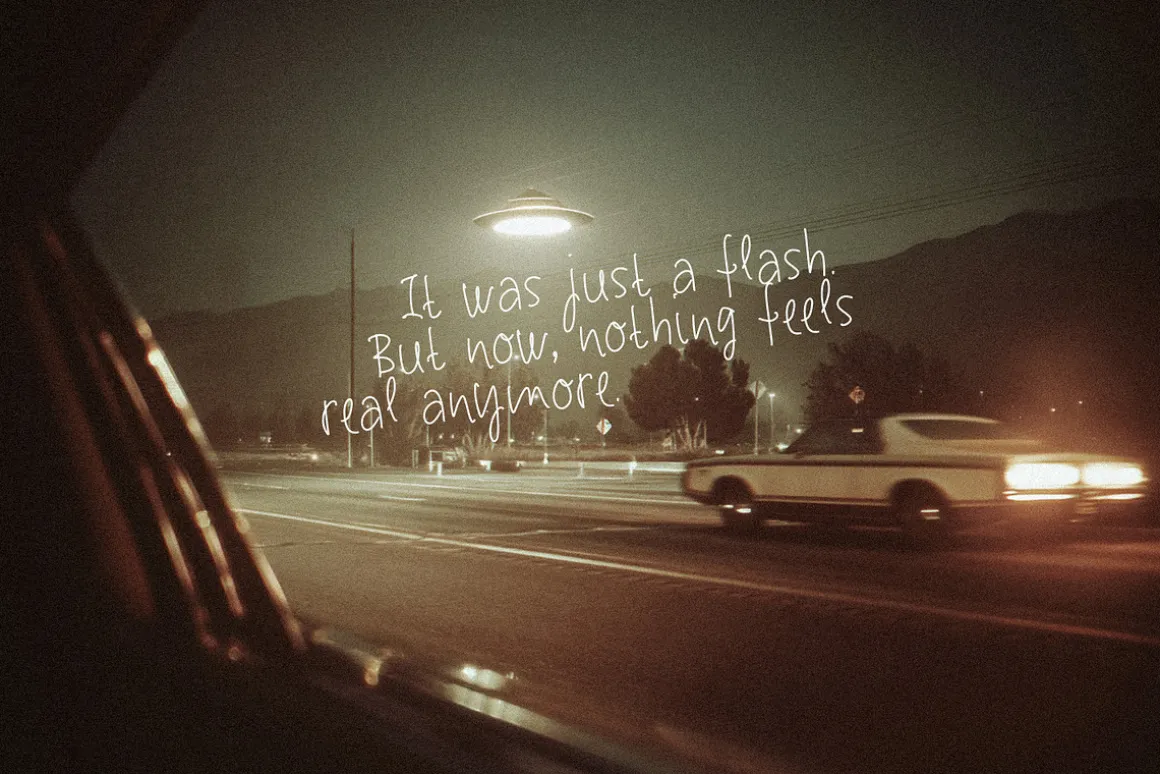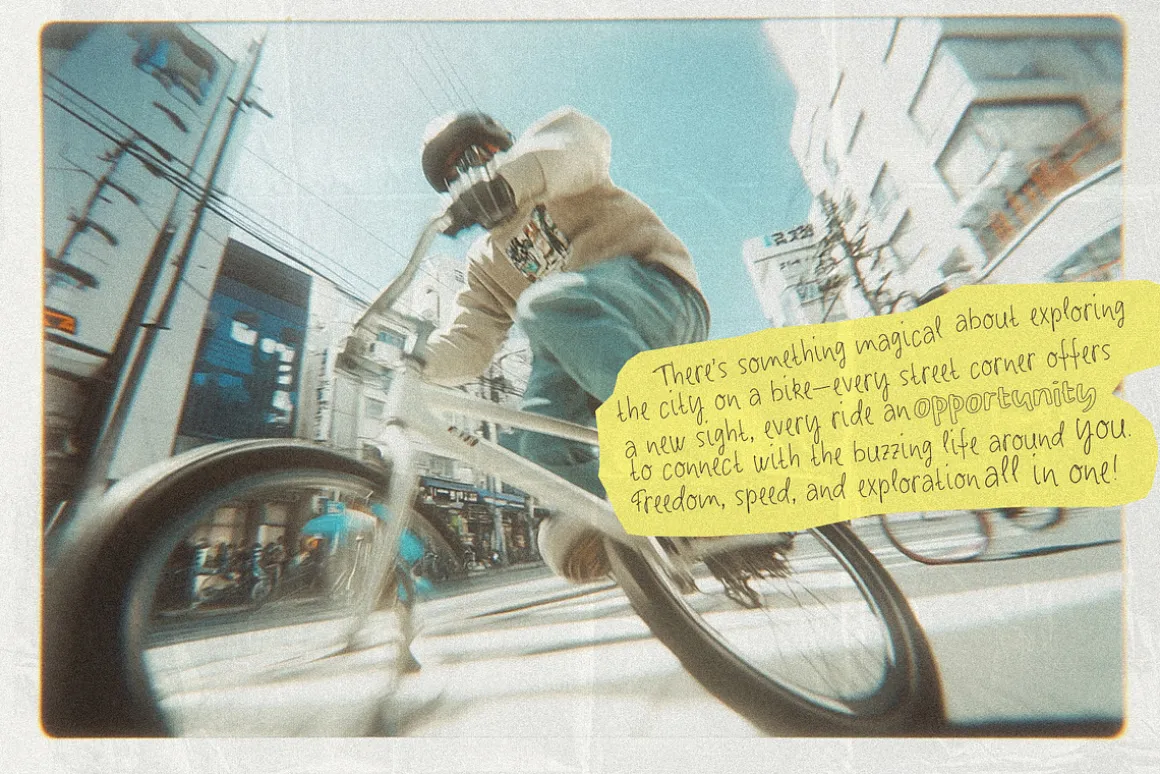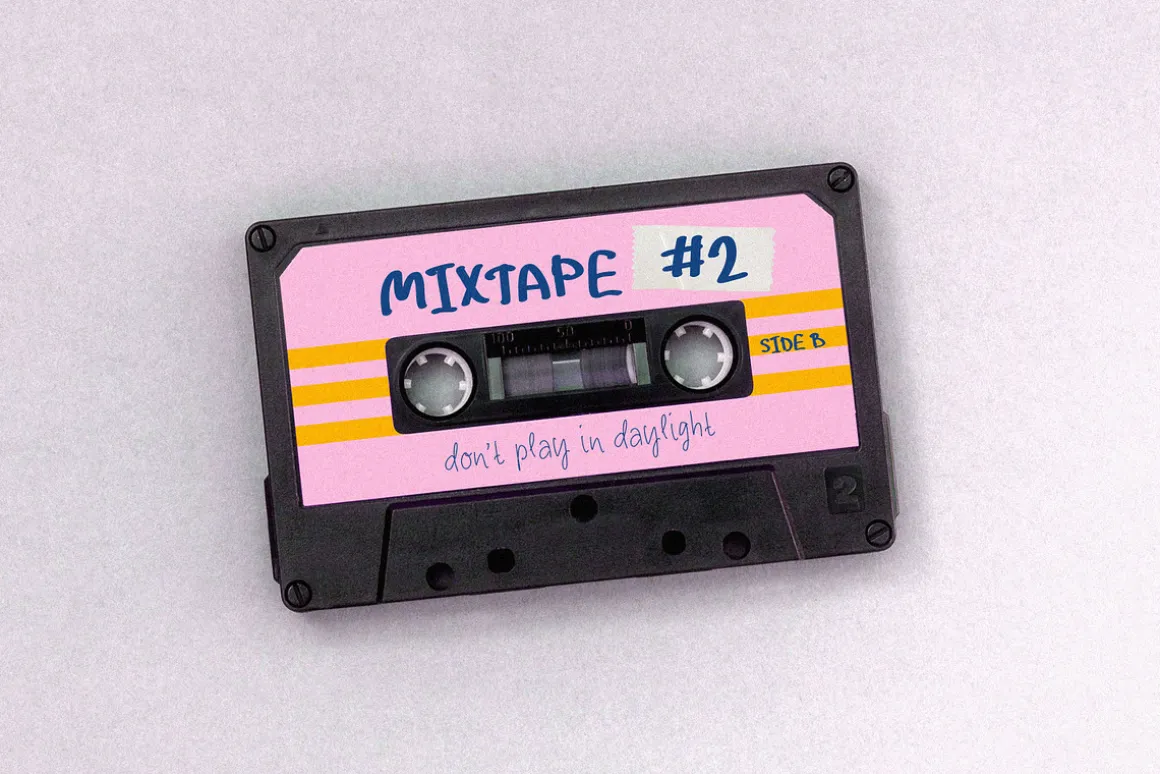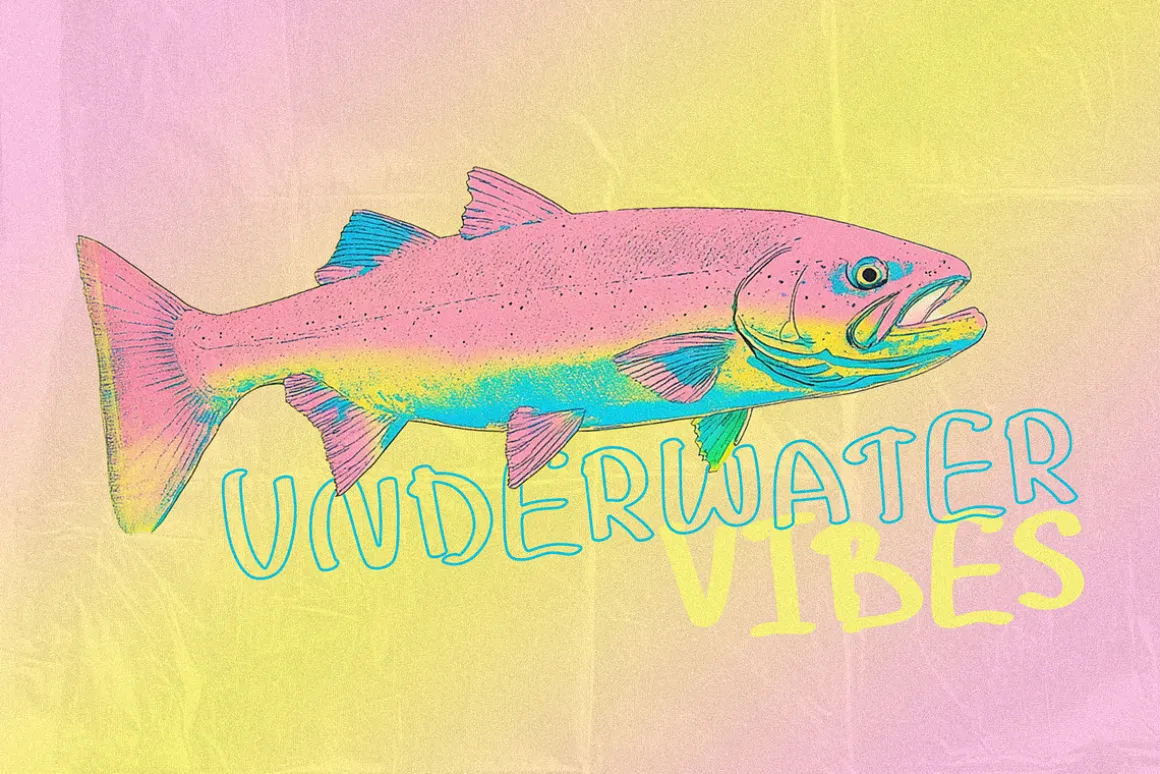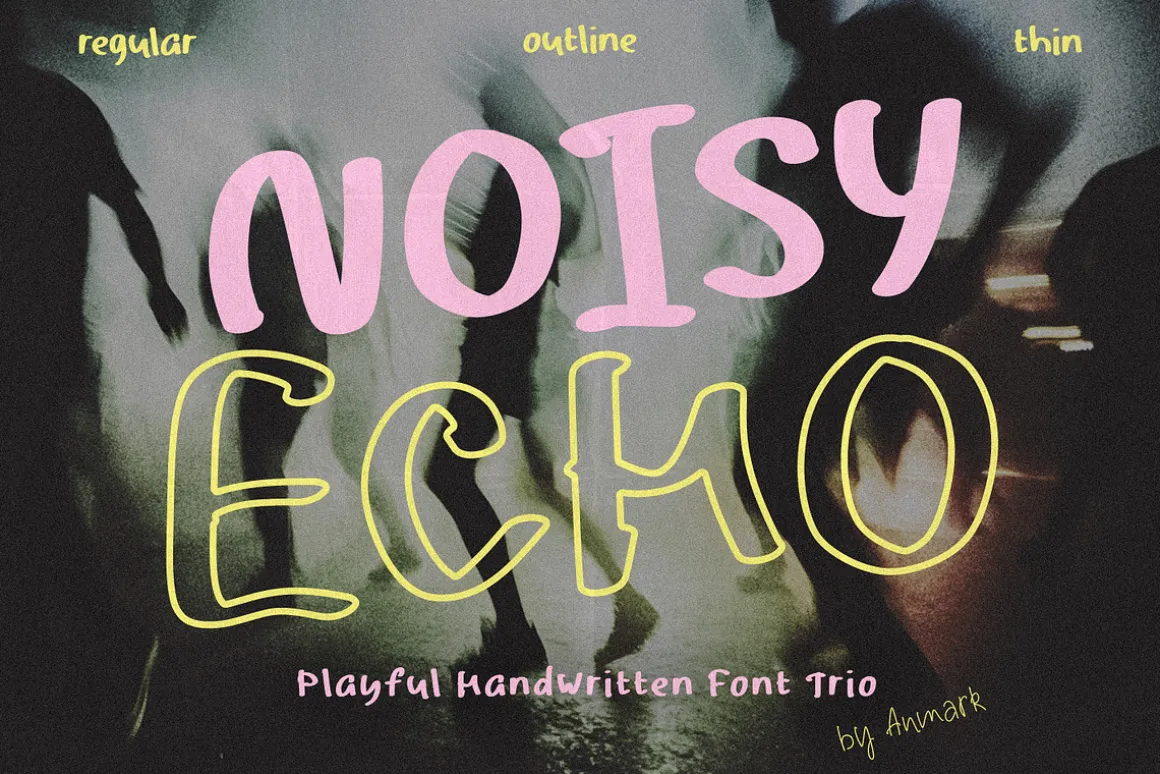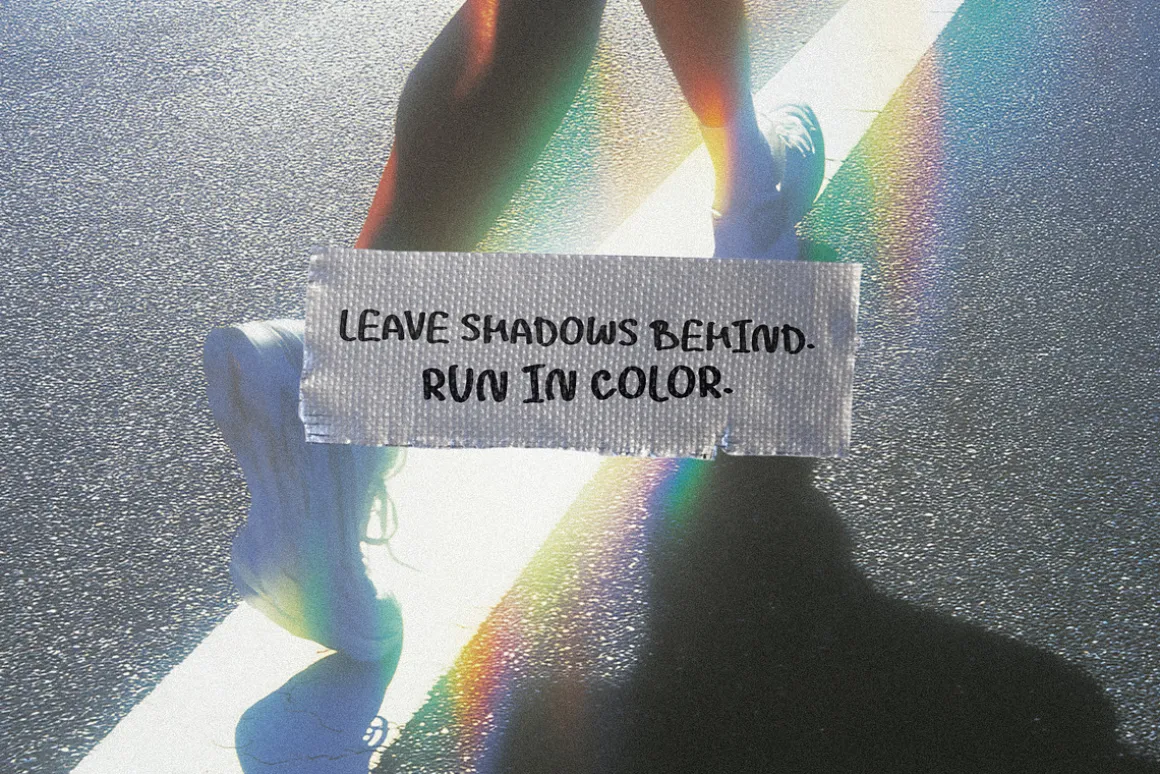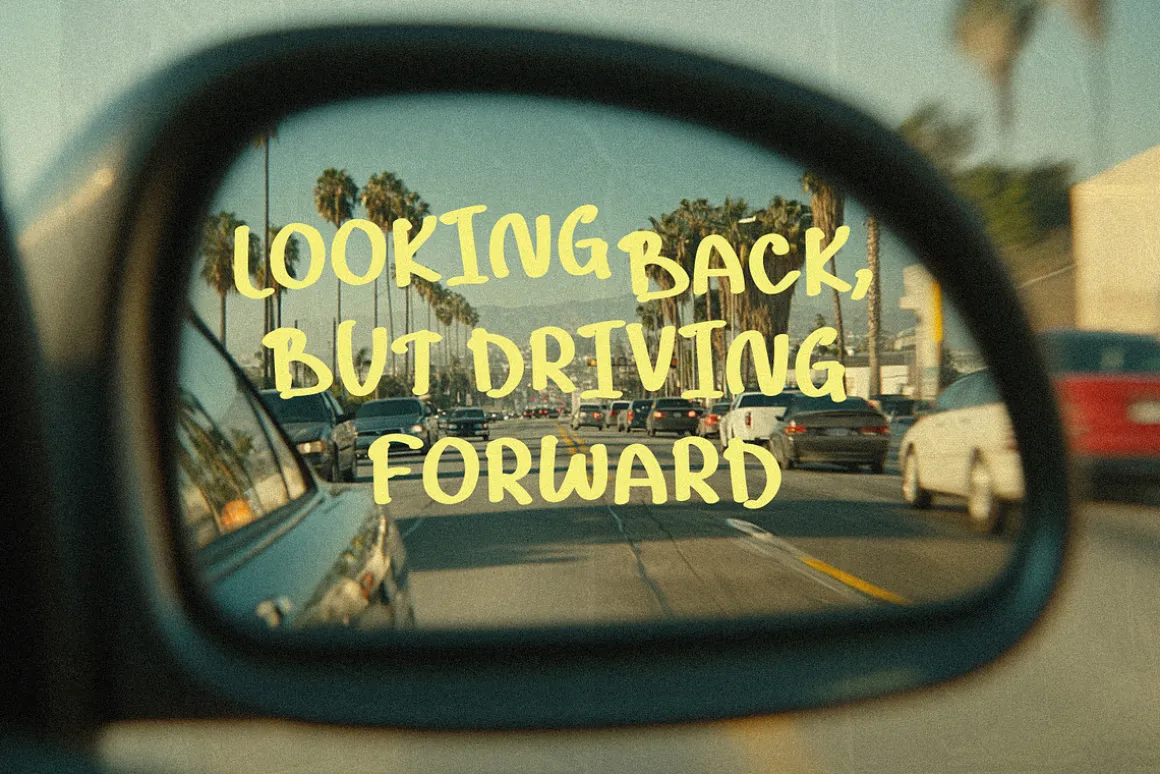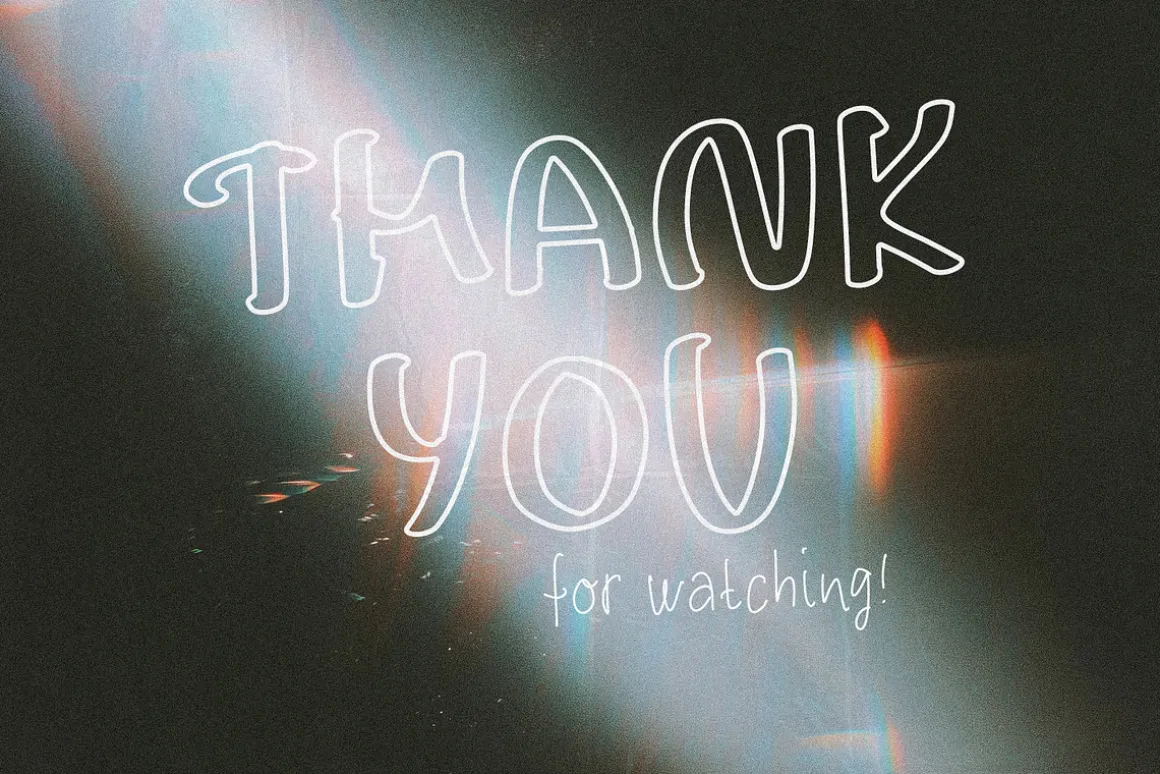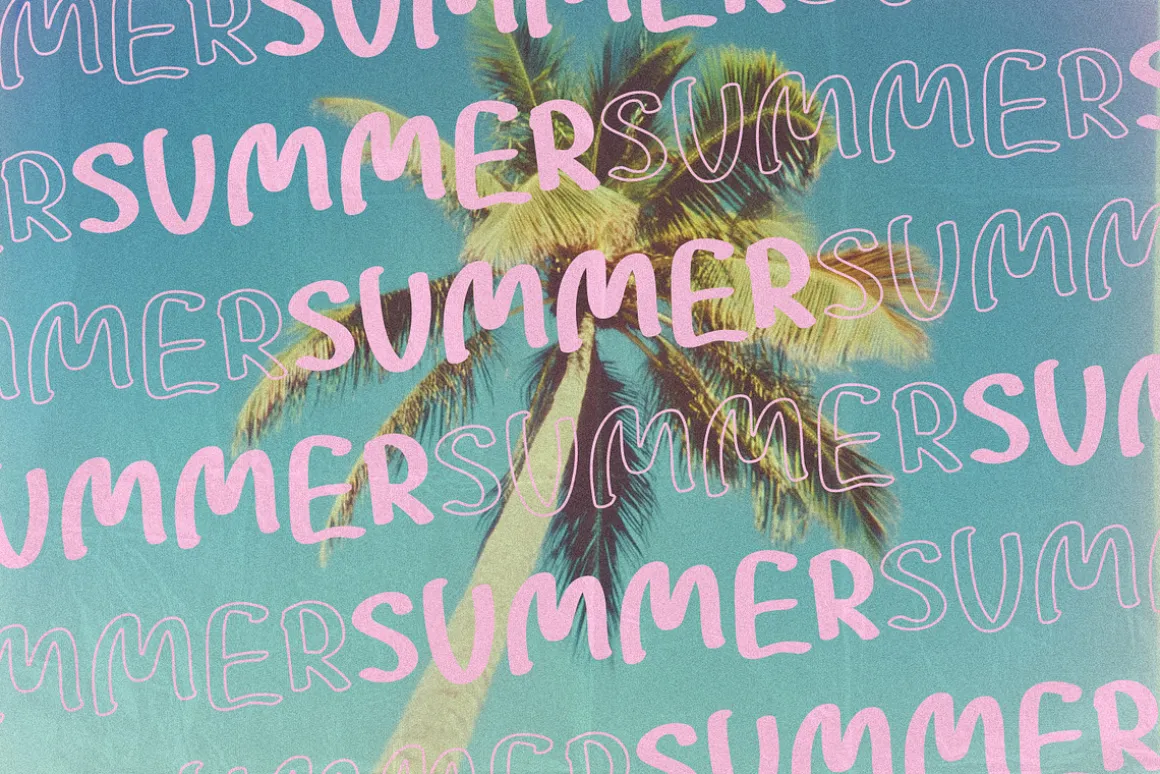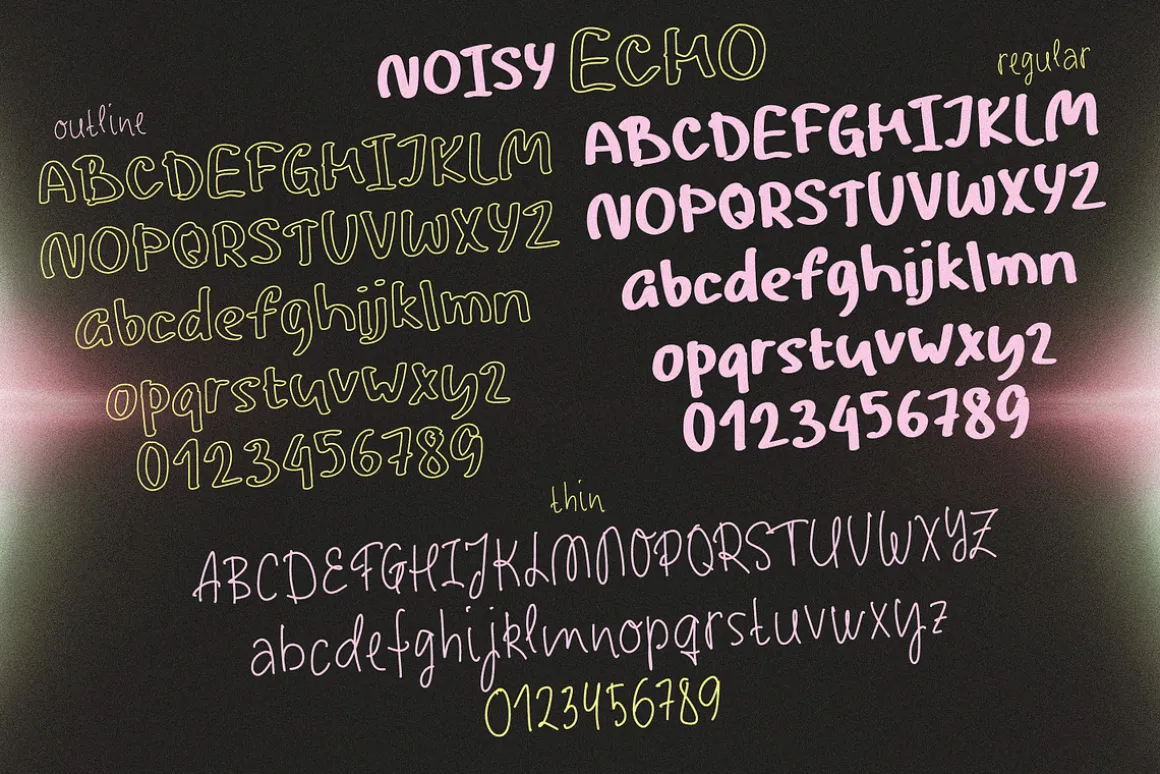
Noisy Echo – Playful Handwritten Font Trio is a bold, expressive, and energetic handwritten font set designed to bring personality and vibrance to your creative work. Perfect for designers looking for a font with attitude, it comes in three distinct styles that can be mixed and matched effortlessly.
Noisy Echo Regular is loud, confident, and full of character. It’s ideal for eye-catching headlines, posters, packaging, branding, and anywhere you want your message to stand out with a punch.
Noisy Echo Outline keeps the same playful rhythm but in a contour version. It adds dimension and layering opportunities, making it perfect for merch designs, zines, music covers, editorial layouts, and quirky label work.
Noisy Echo Thin offers a light and airy contrast to the bolder styles. It’s great for handwritten quotes, social media content, story slides, background texts, and any layout that needs a subtle, human touch.
This font trio is versatile and fun to use across a wide range of projects: from branding and logos to packaging, posters, kids’ designs, stickers, invitations, digital collages, album art, and lifestyle blogs. It shines in editorial design, creative advertising, and playful typographic compositions.
Noisy Echo is your go-to for loud ideas and visual energy — a font trio that adds bold character to every project.